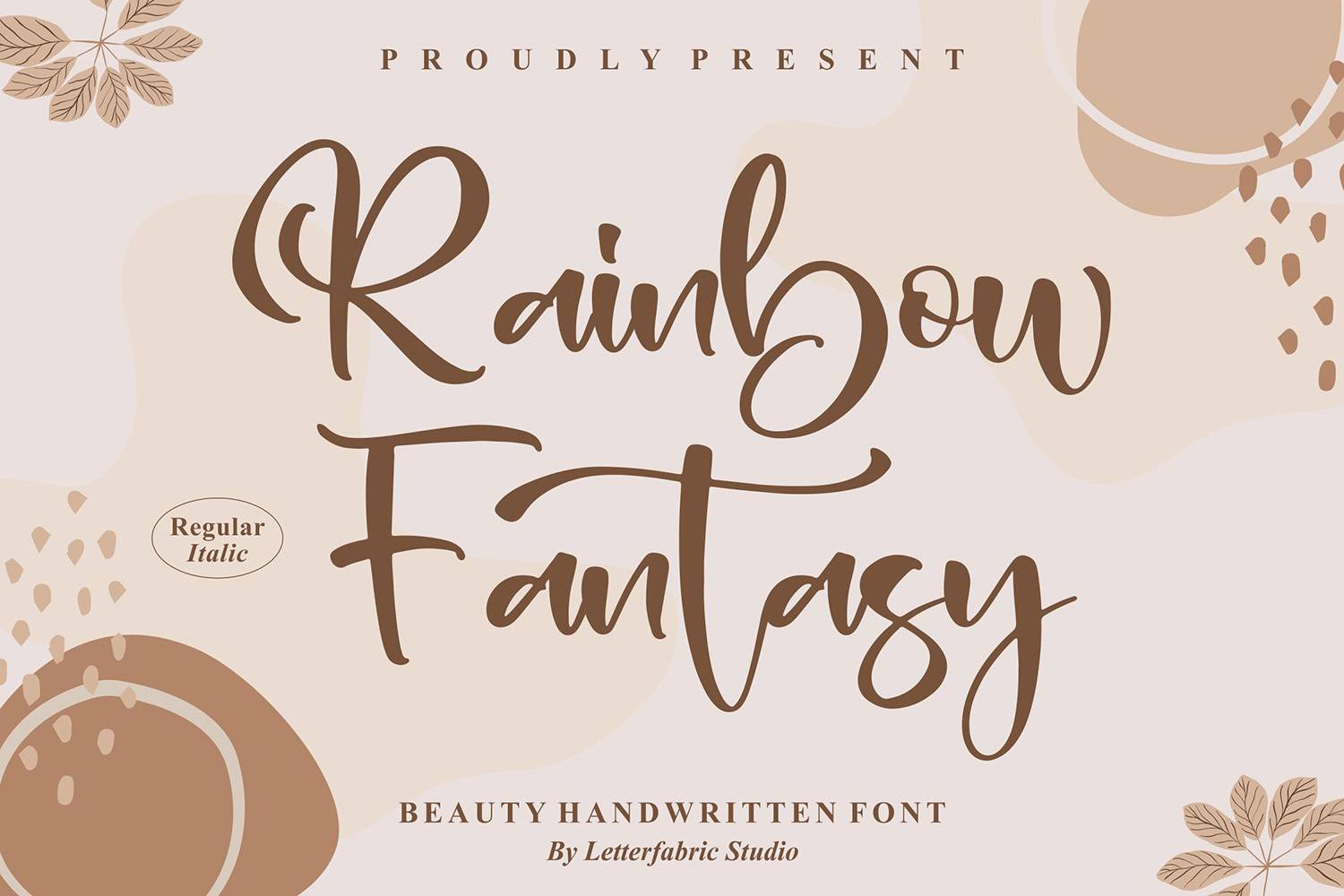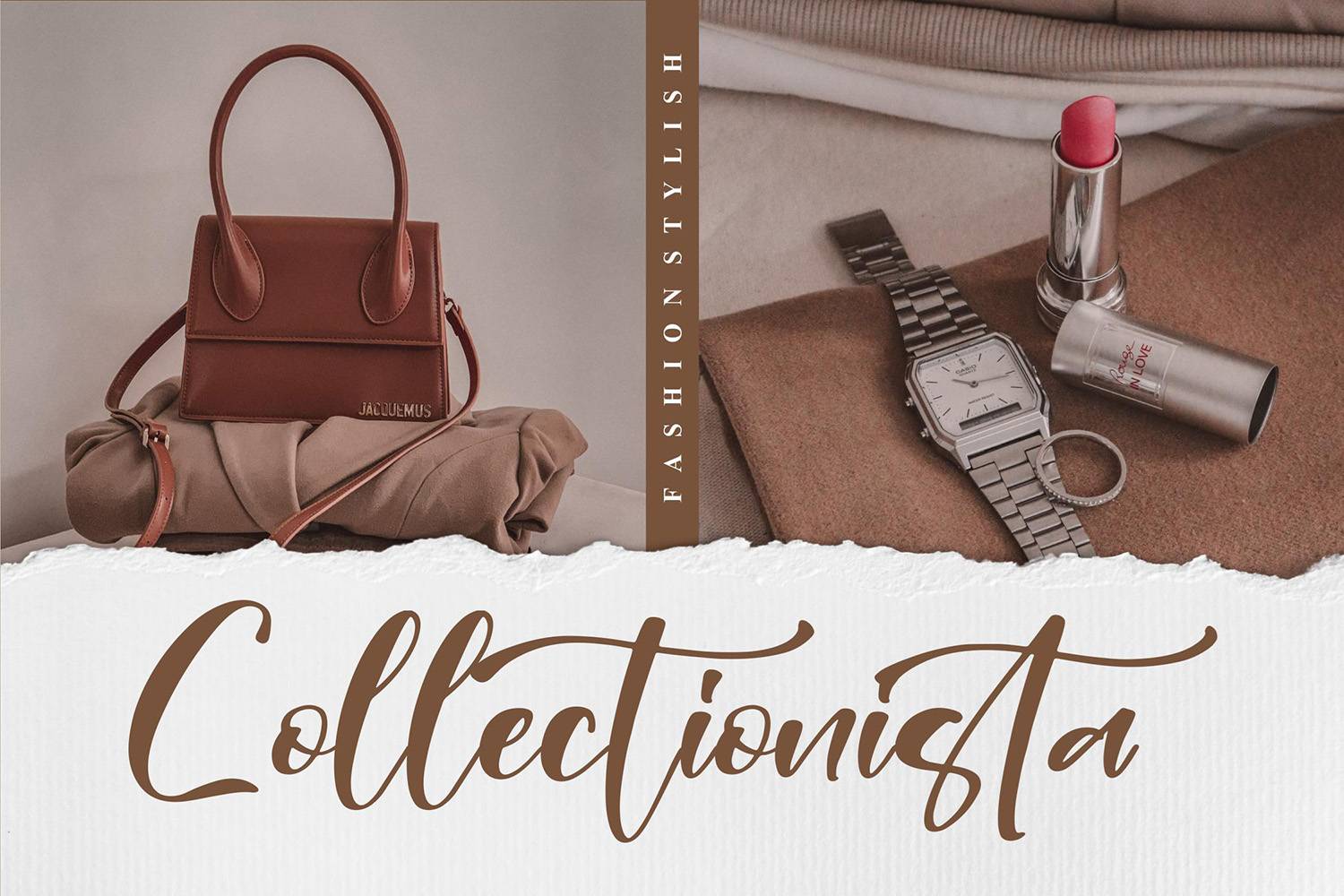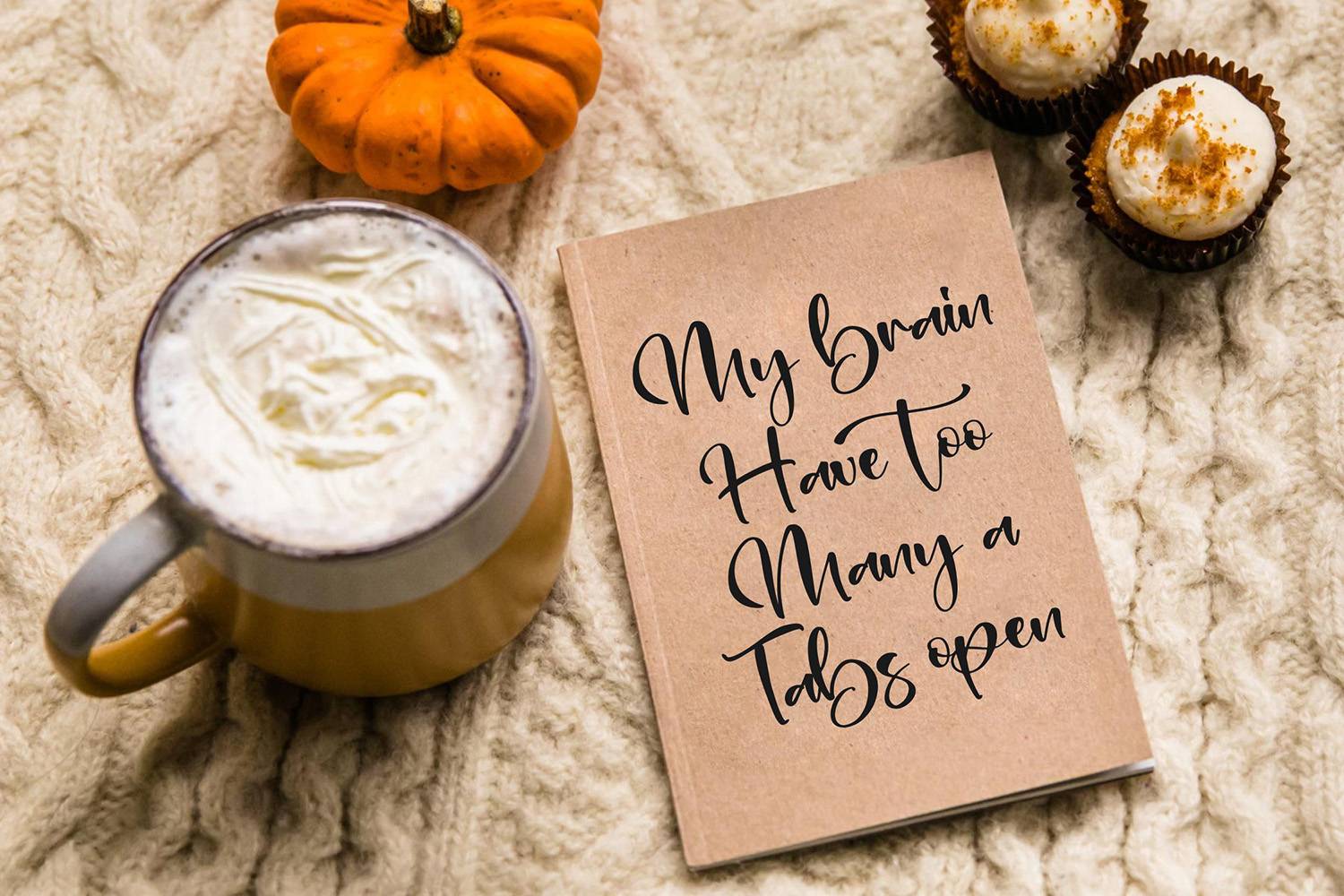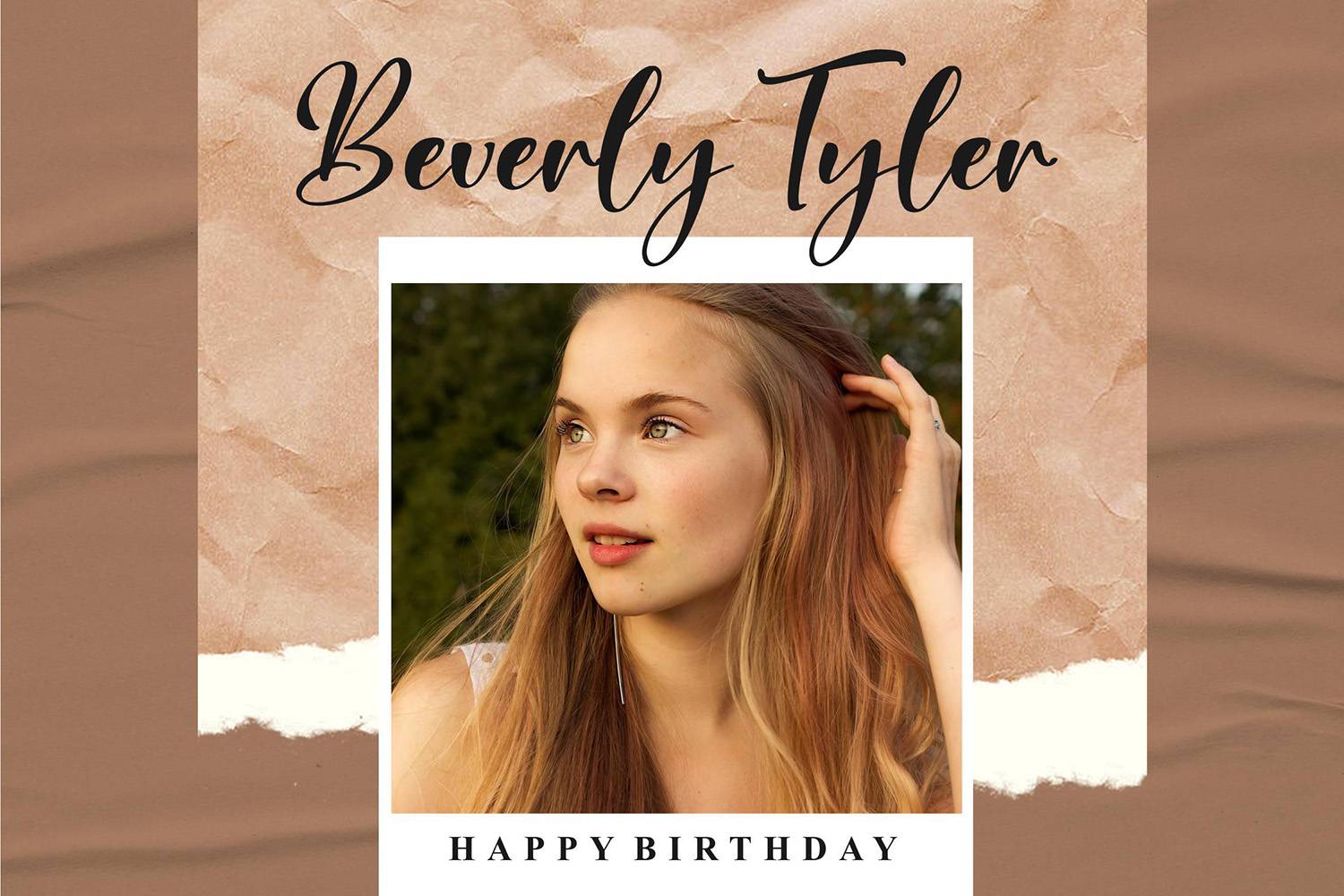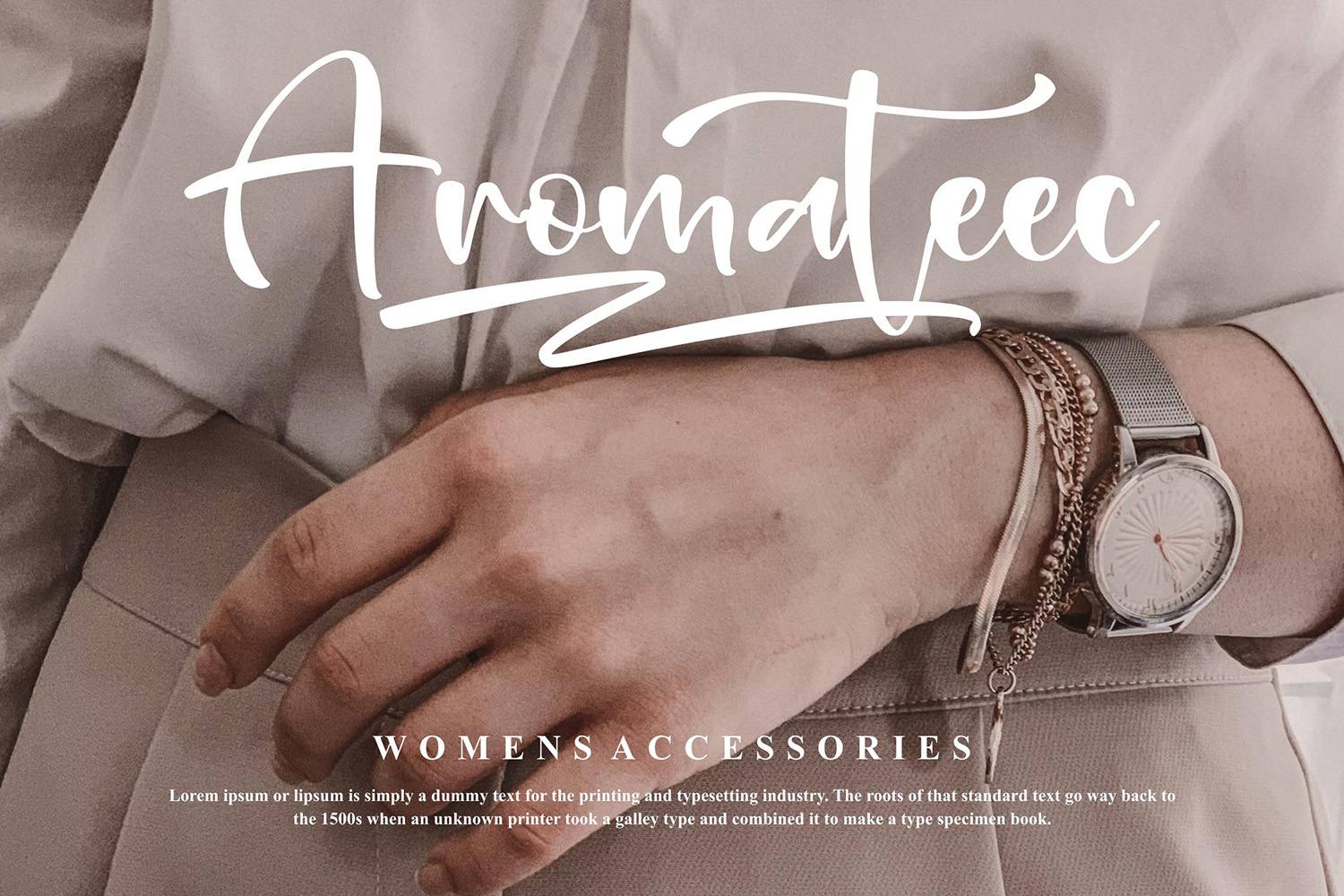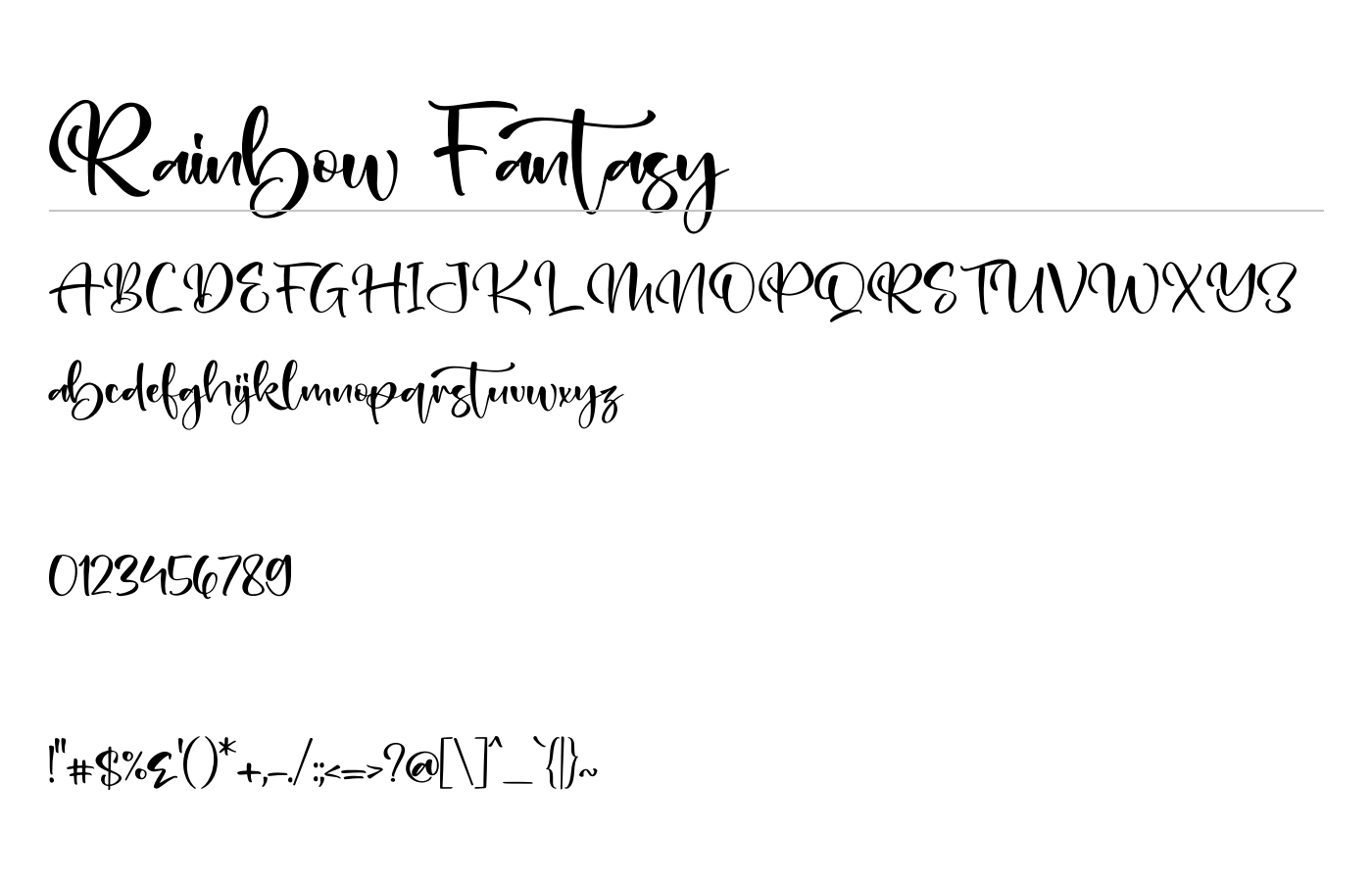
Rainbow Fantasy Font is a lively and elegant script typeface with flowing, hand-brushed strokes that combine playful charm with a sophisticated flair. Its delicate yet expressive letterforms make it perfect for creative projects like invitations, branding, and decorative headlines where a touch of whimsy and personality is desired. This font stands out with its smooth curves and distinctive character, bringing a warm and inviting feel to any design.
Rainbow Fantasy Font
About Rainbow Fantasy Font